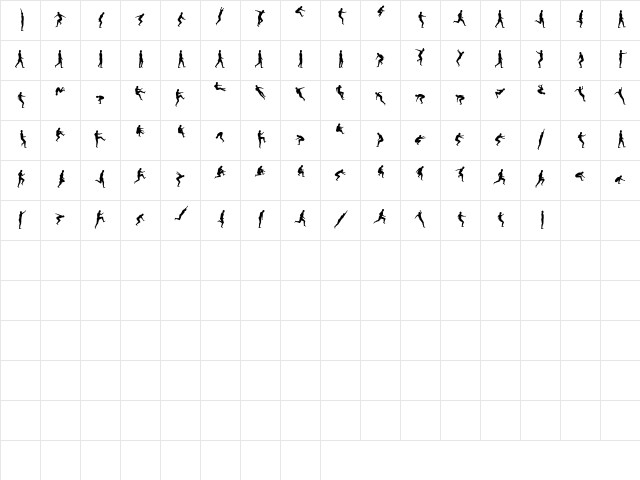
Swifty Regular
Design Context for Swifty
Swifty is a composed and adaptable typeface that performs quietly and consistently across a wide range of design contexts.
Pro Tip: Use Swifty in both headline and body roles to test its range before committing to a single application.